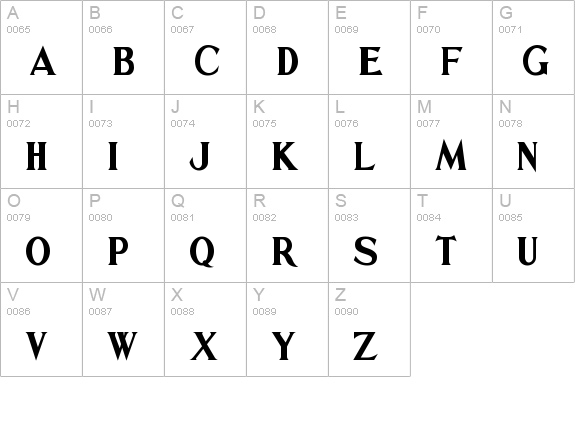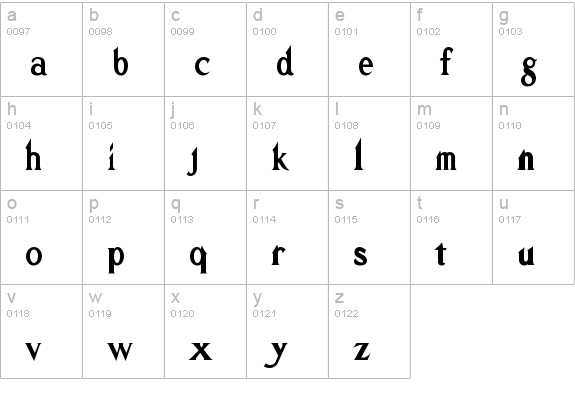
Goldburg Font Details
Goldburg font is a stylish and elegant typeface that exudes sophistication and class. With its clean lines and modern design, this font is perfect for a wide range of design projects, from branding to packaging to invitations. The sleek curves and sharp angles of Goldburg font make it stand out, while still maintaining a sense of professionalism. The best part? Goldburg font is completely free to download at FontsMarket.com. Whether you're a designer looking to add a touch of luxury to your creations or a business owner wanting to elevate your brand, Goldburg font is the perfect choice. Don't miss out on the opportunity to enhance your projects with this stunning font – download Goldburg today and take your designs to the next level.